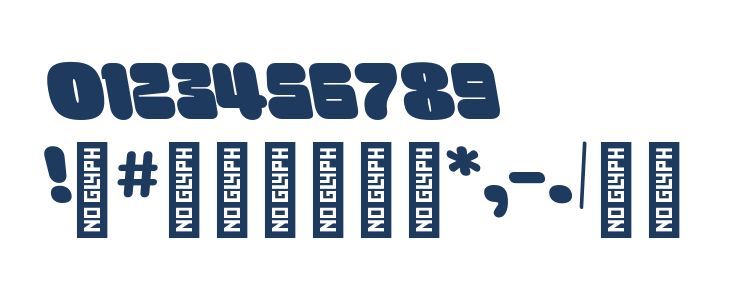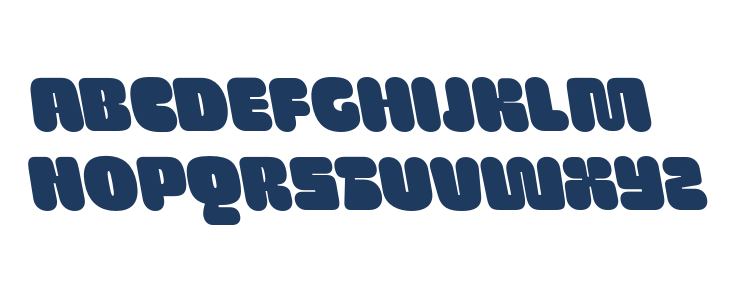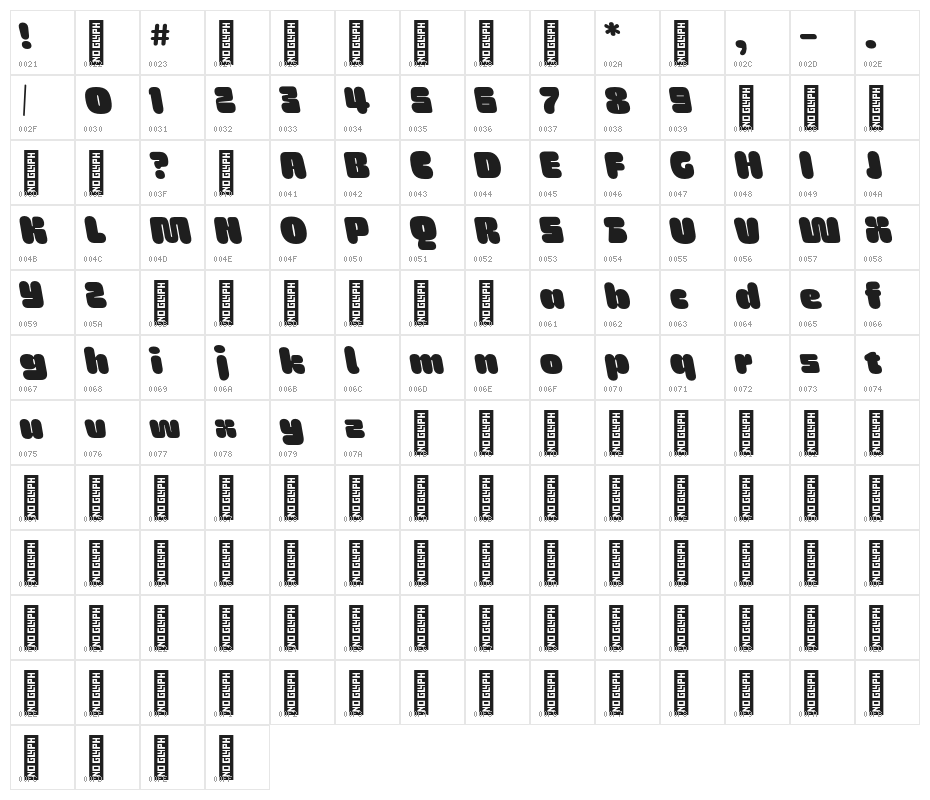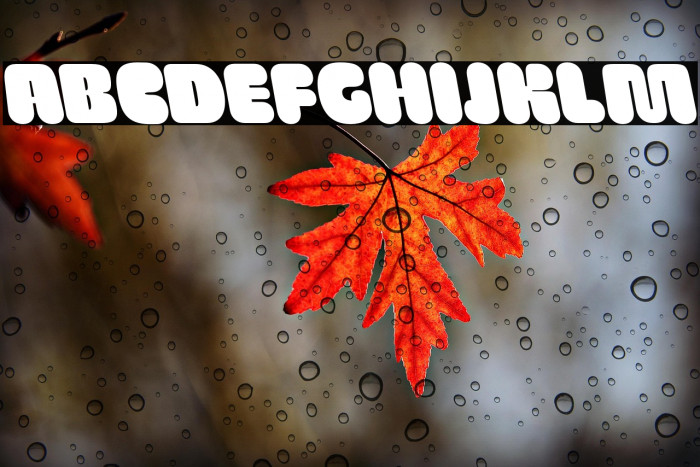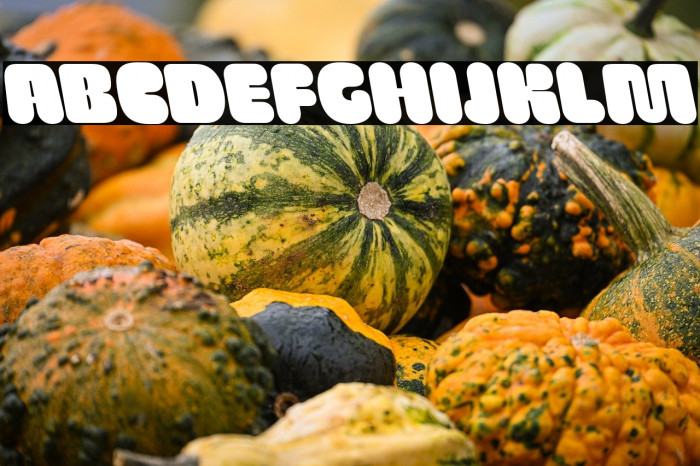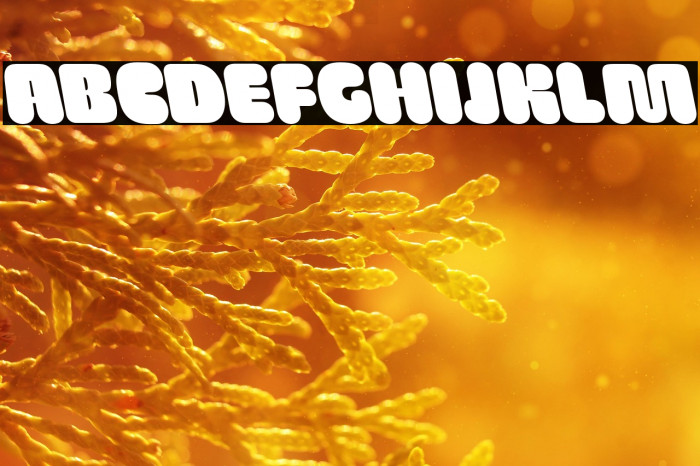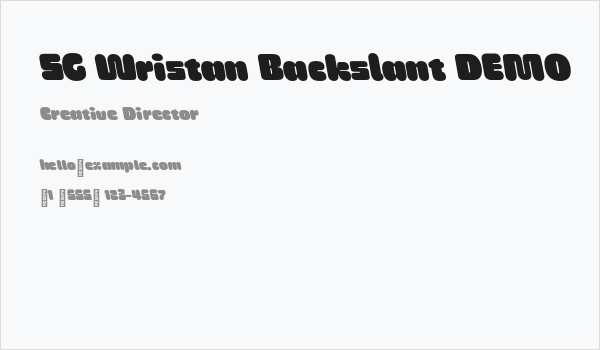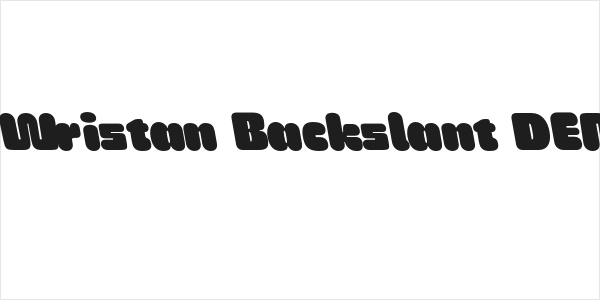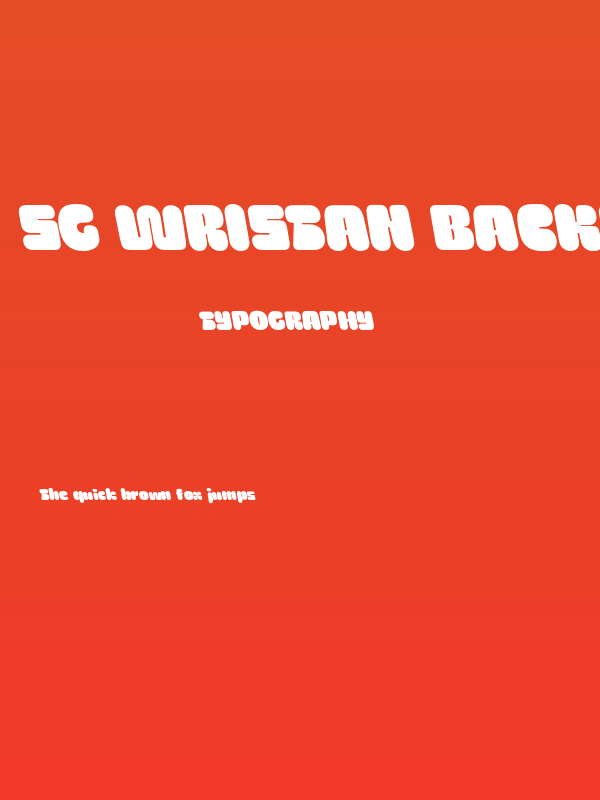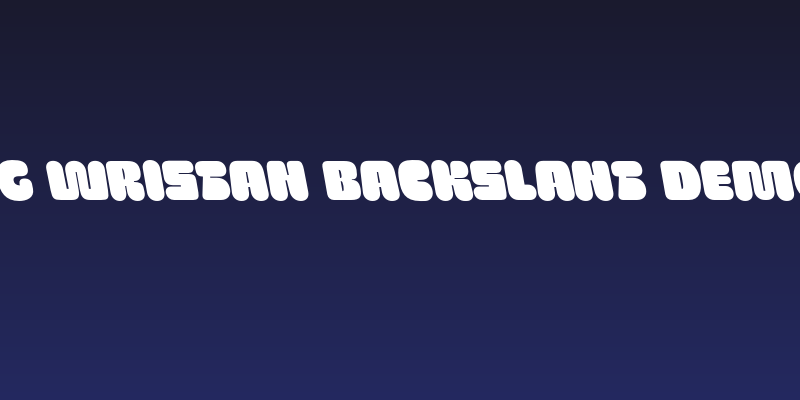
SG Wristan Backslant DEMO Font
SG Wristan Backslant DEMO Description
| Overall Style | Decorative, Retro, Playful |
| Proposed Projects | Posters, branding, childrenΓ’β¬β’s products, event flyers, packaging, social media graphics. |